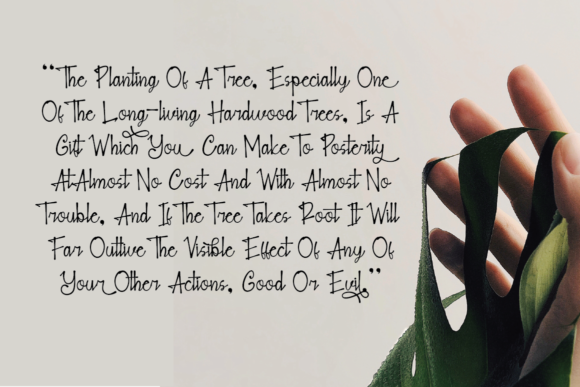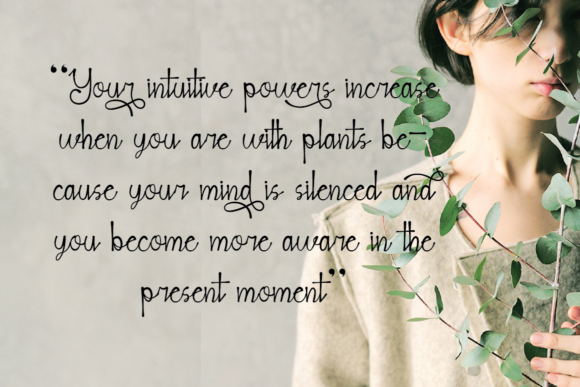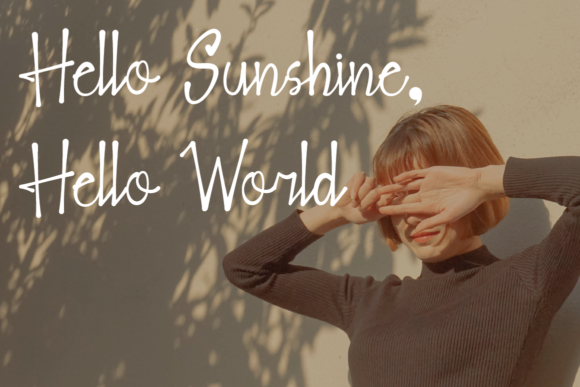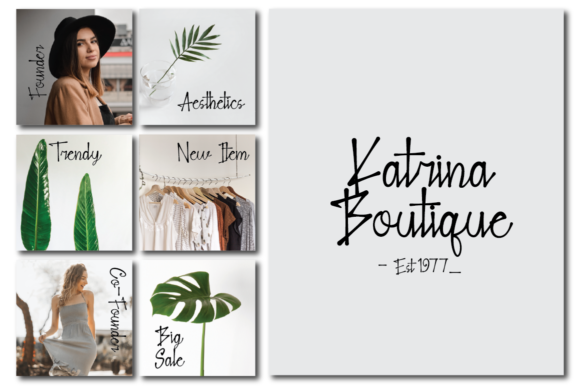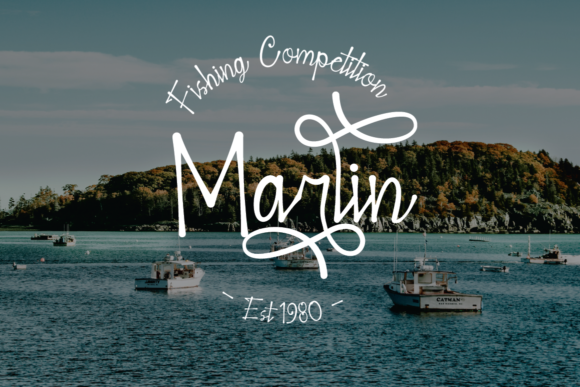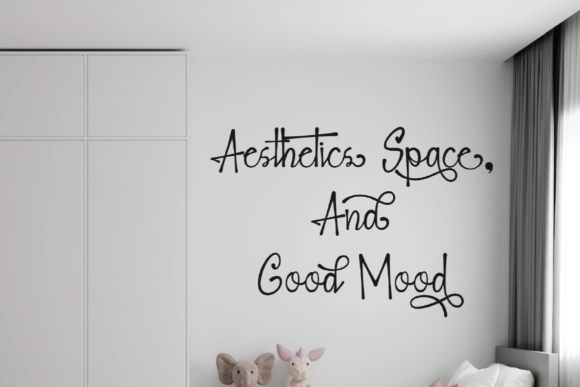
The Quest for the Perfect Font: Discovering Blank Note
Ah, the eternal search for the perfect font. You know, that one moment when you’re working on a project, and everything is going great, but then you realize that your font just isn’t cutting it. You’re not alone! I’ve been there too. I recall working on a client’s wedding invitation design, and I was determined to make it perfect. But, my font choices were just not doing the design justice. That’s when I stumbled upon Blank Note, an exquisite handwritten font that quickly became my go-to.
A Love Letter to Blank Note
So, what makes Blank Note so special? Let me tell you, it’s a masterclass in elegant handwritten typography. Here are just a few things I love about it:
- ✨ Classy calligraphic influences: Blank Note has a sophisticated feel that’s perfect for high-end designs, like luxury branding or wedding stationery.
- ✅ Contemporary and fresh: Despite its classic influences, Blank Note feels modern and versatile, making it suitable for a wide range of projects.
The Honest Review: Not Perfect, But Close!
While Blank Note has stolen my heart, it’s not without its quirks. Here are a few things to keep in mind:
- 🤔 Some characters may be a bit too ornate: While the script is generally elegant, some characters might be too ornate for certain projects, like body text or very formal designs.
The Story Behind Blank Note
While the true story behind Blank Note’s creation remains a mystery, it’s easy to imagine a designer pouring their heart into crafting such a beautiful, versatile font. Perhaps they were inspired by the elegance of calligraphy, combined with a desire to create something fresh and modern. Whatever the inspiration, Blank Note has undoubtedly captured the hearts of designers worldwide.
| What makes Blank Note so special? | Blank Note’s unique blend of classic calligraphic influences and modern freshness makes it perfect for a wide range of designs. |